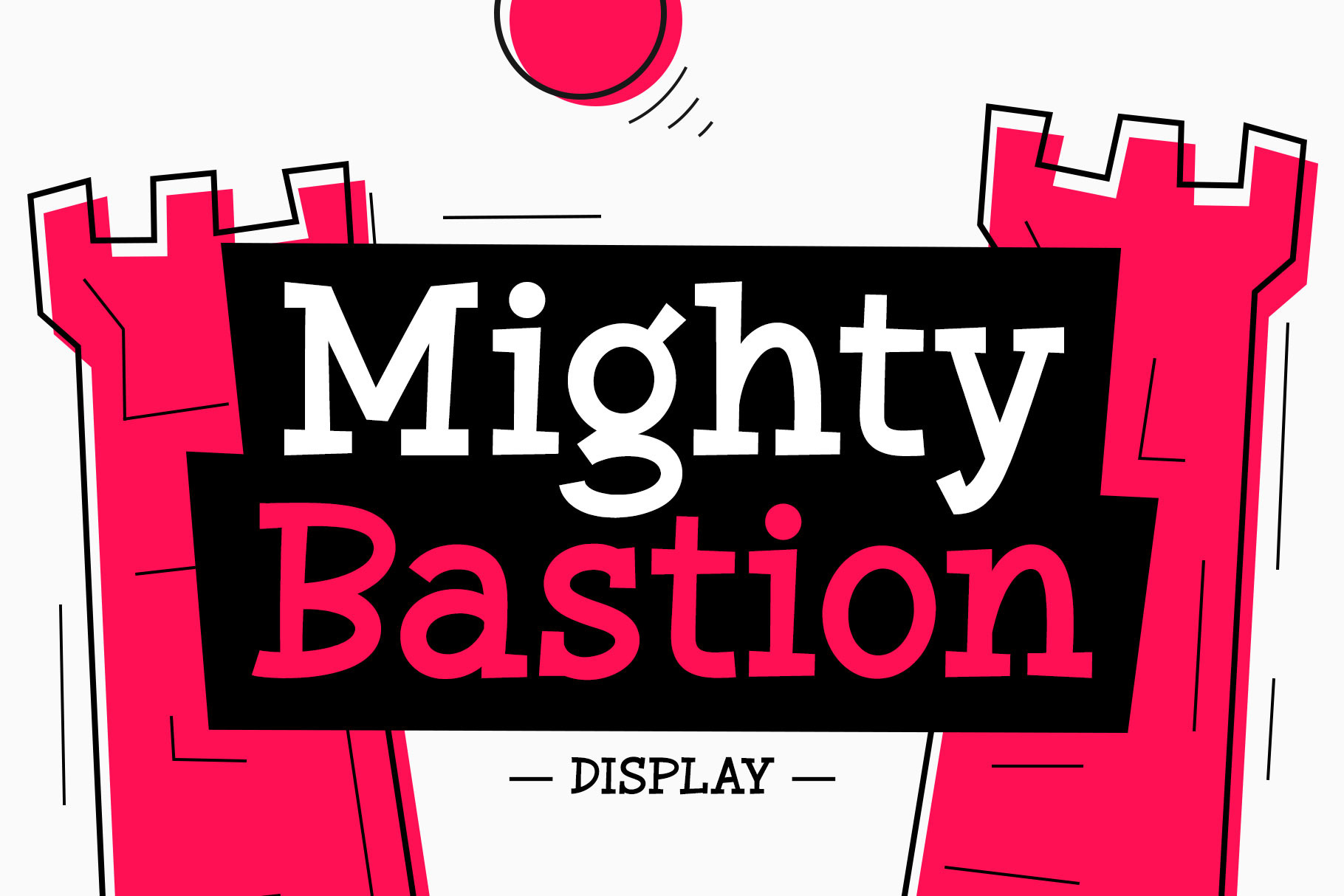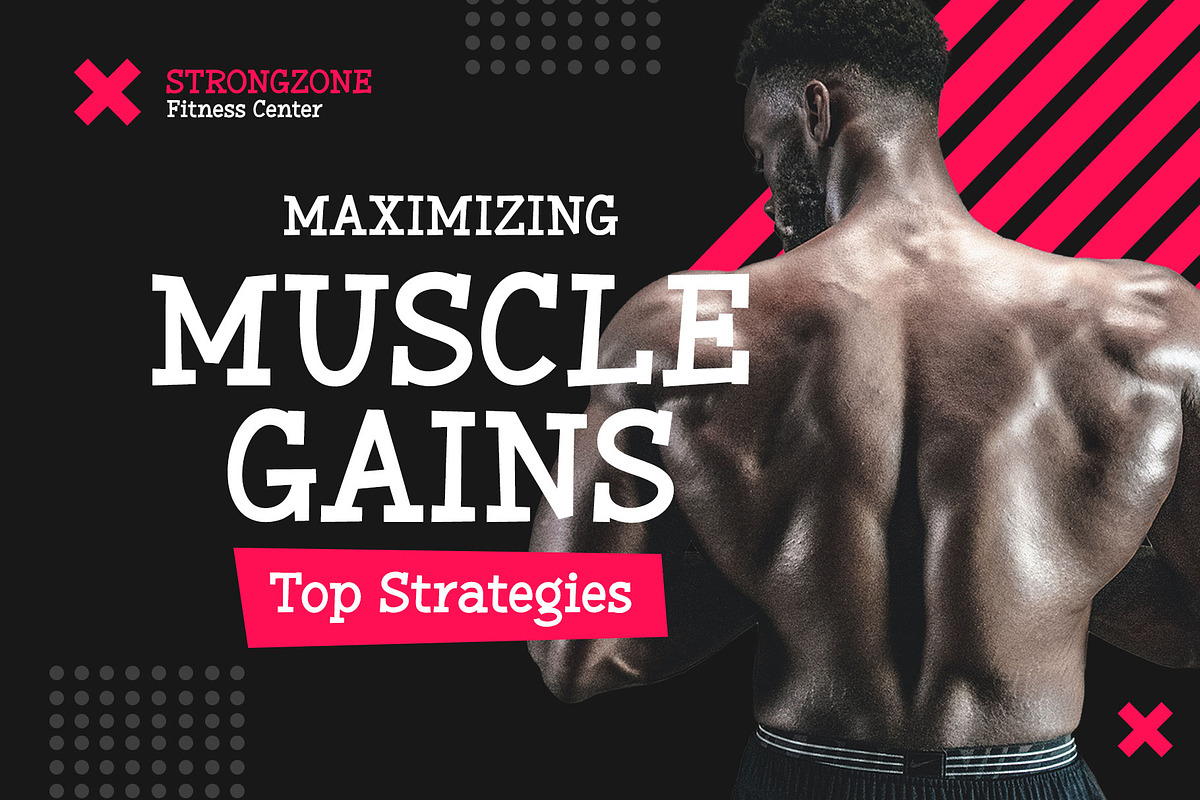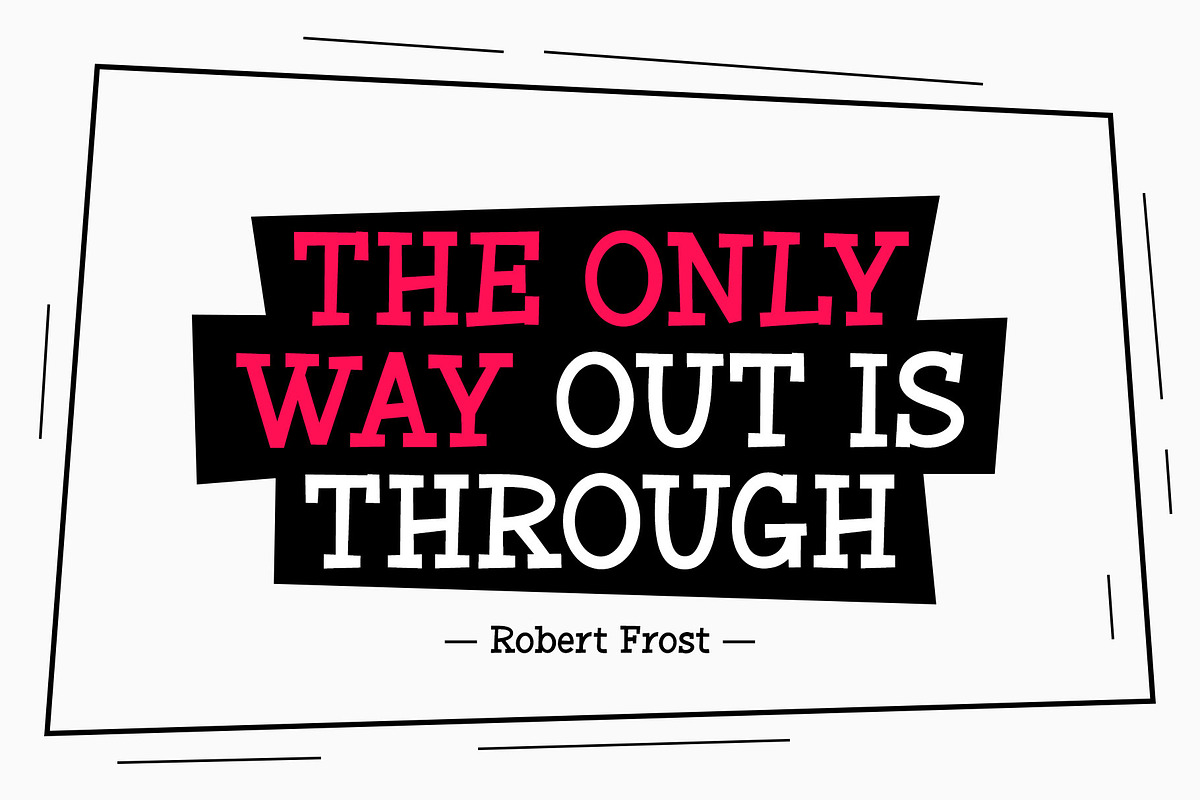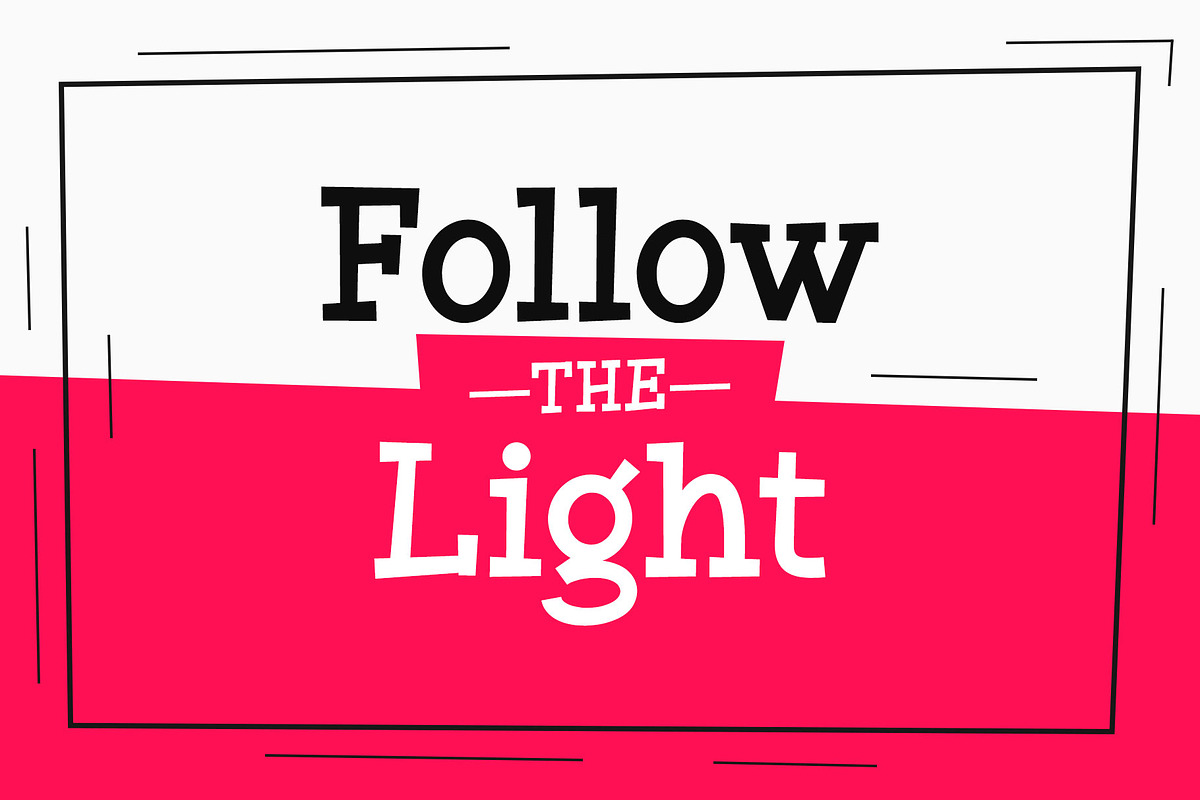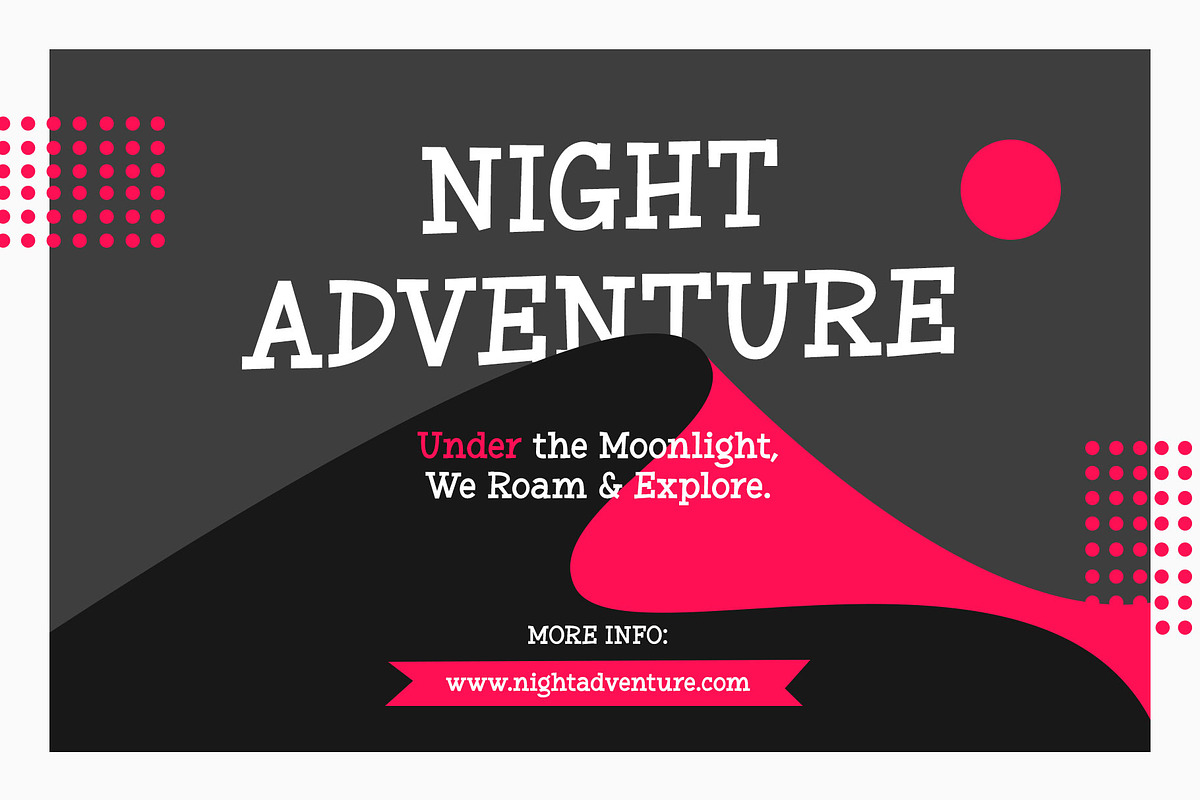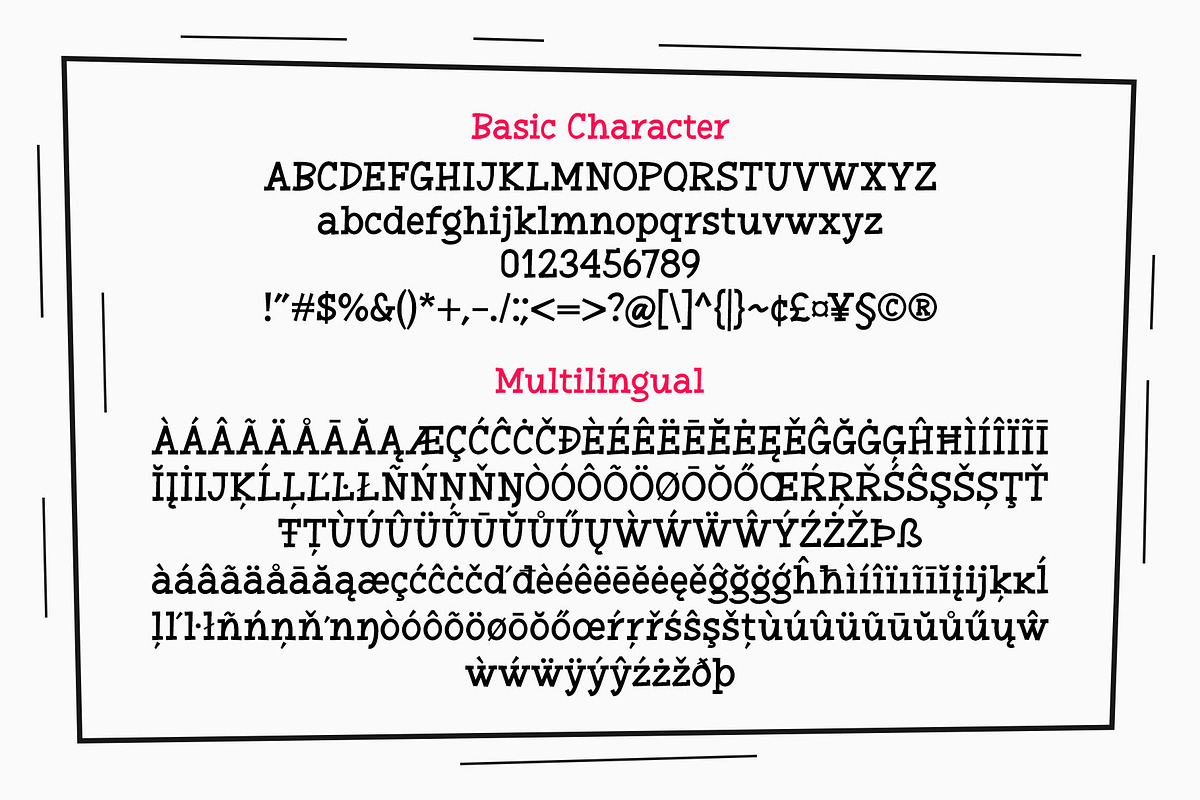
Mighty Bastion | Display Font
Mighty Bastion - an attractive and fun display font. Its classic and dynamic letterforms bring a unique character to your designs, making it ideal for logos & branding, headlines, magazines, posters, quotes, packaging design, labels, and much more!